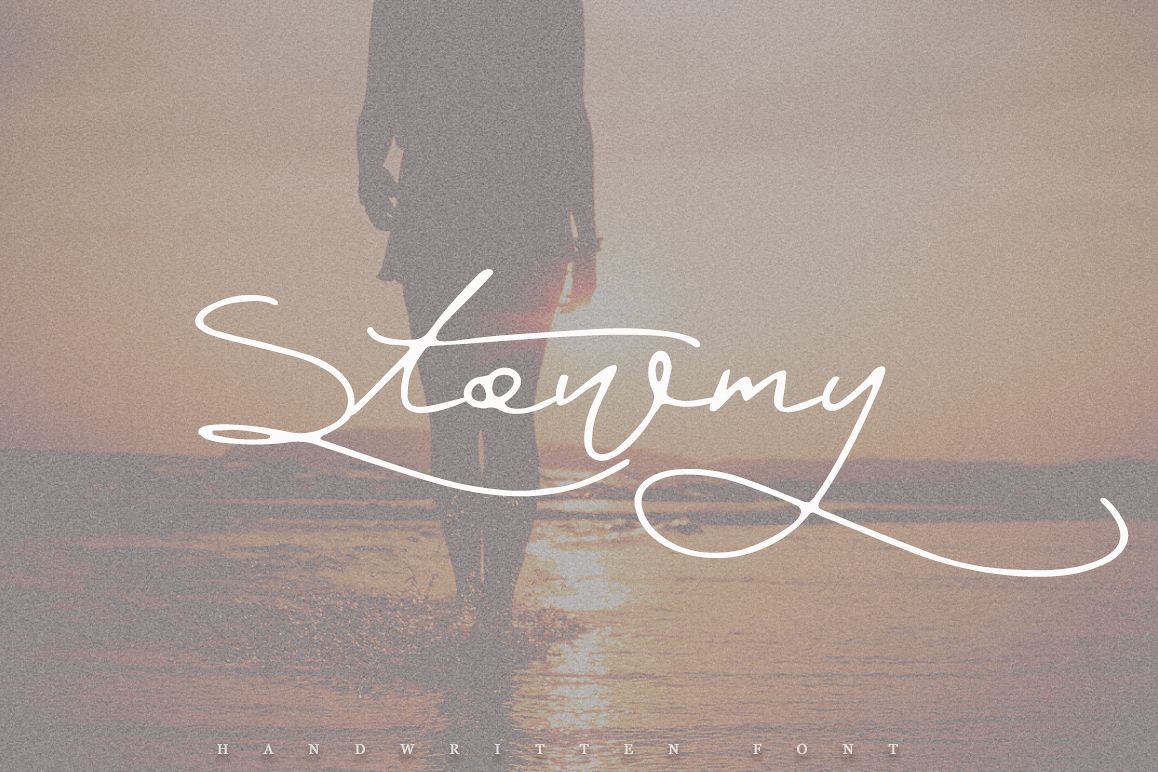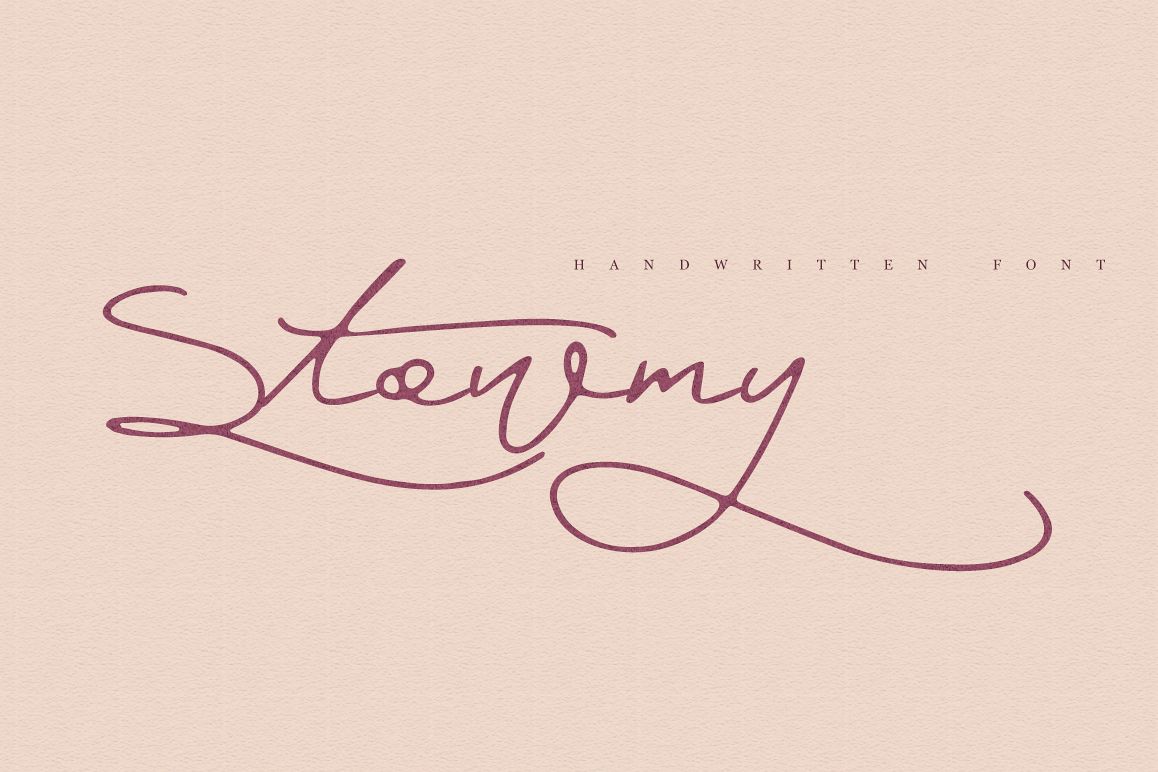
Stowmy
Stowmy-Regular
Handwritten signature font Stowmy is modern font, every single letters have been carefully crafted to make your text looks beautiful. With modern script style this font will perfect for many different project ex: logo, photography, watermark, quotes, blog header, poster, wedding, branding, logo, fashion, apparel, letter, invitation, stationery, etc.